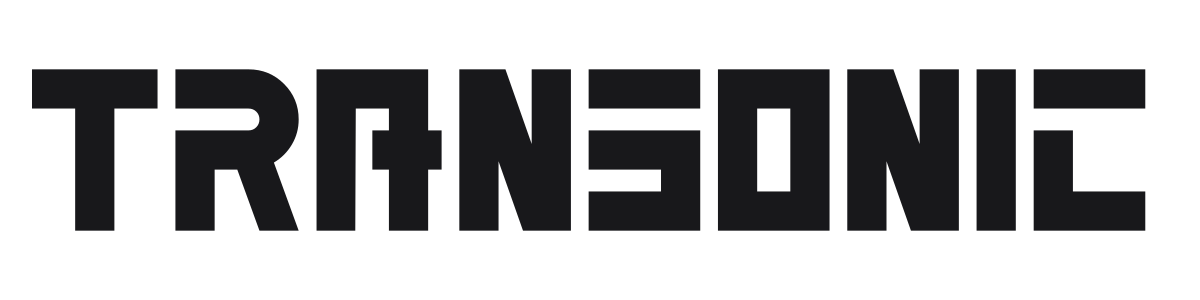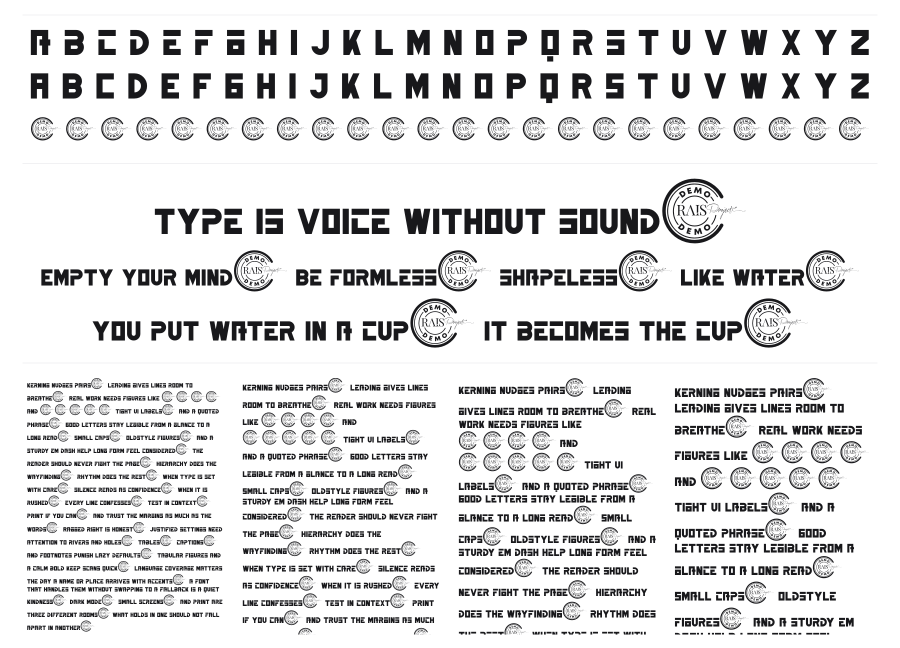
Transonic
Transonic is a bold geometric techno face built from squared, modular strokes with distinctive notched cutouts that break the letterforms into segmented units. The heavy weight and near-zero stroke contrast give it an aggressive, high-velocity character that reads instantly at large sizes. It sits naturally in gaming, sports branding, and anything that needs to feel fast or mechanical.